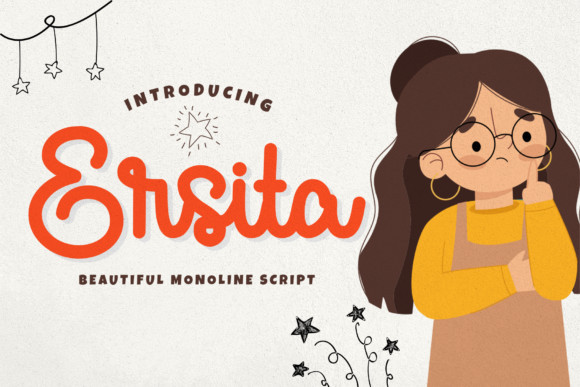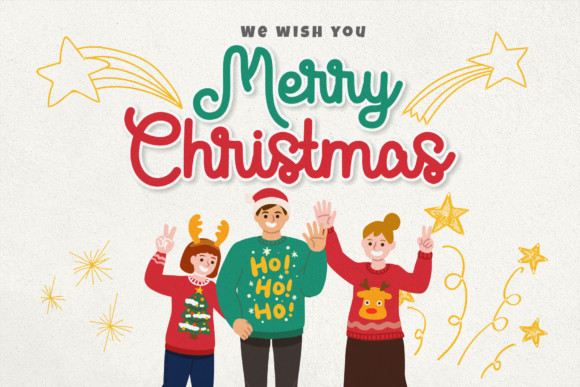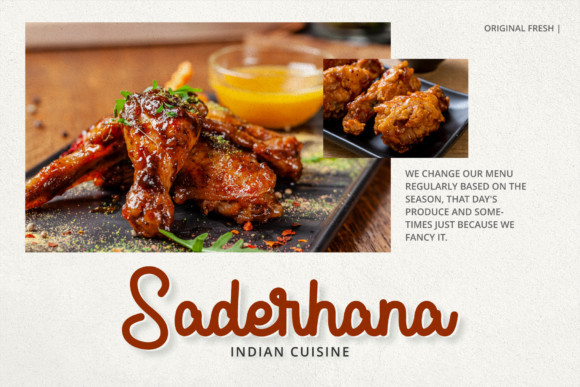
Ersita Font
Ersita is a beautiful and cute paint brushed script font. Not too thin and not too thick, balanced and varied, this font was designed to enhance the beauty of your projects.